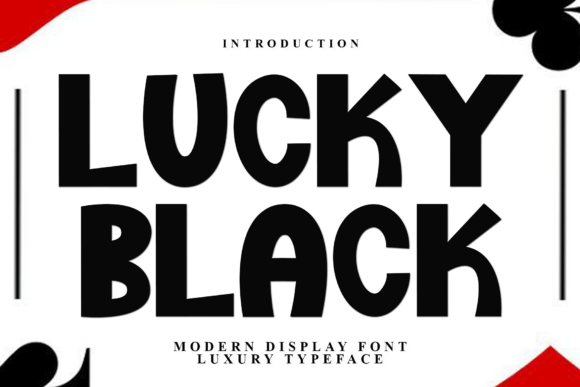
Lucky Black Font: The Ultimate Display Font for Bold Designs
Lucky Black font is a bold, eye-catching display font that has been making waves in the design world with its thick, heavy letters and fun, modern style. This font is perfect for designers who want to create posters, logos, or any design that needs to stand out from the crowd. In this article, we’ll take a closer look at the Lucky Black font, its features, and how you can use it to take your designs to the next level.
Key Features of Lucky Black Font
- Bold and Eye-Catching: Lucky Black font is designed to grab attention with its thick, heavy letters that make a statement.
- Modern Style: This font has a fun and modern style that is perfect for designs that need to look fresh and contemporary.
- Easy to Read: The letters in Lucky Black font are big and easy to read, making it perfect for use in posters, logos, and other designs where readability is key.
- Strong and Confident: The overall look of Lucky Black font is strong and confident, making it perfect for designs that need to convey a sense of authority or power.
Uses of Lucky Black Font
Lucky Black font is a versatile font that can be used in a variety of design projects. Here are some of the most popular uses of this font:
- Posters: Lucky Black font is perfect for creating eye-catching posters that need to grab attention.
- Logos: This font can be used to create bold and memorable logos that make a statement.
- Headings: Lucky Black font can be used as a heading font to add emphasis and create visual interest.
- Advertising: This font is perfect for use in advertising, where bold and eye-catching text is often needed.
Benefits of Using Lucky Black Font
There are many benefits to using Lucky Black font in your designs. Here are some of the most significant advantages:
- Attention-Grabbing: Lucky Black font is designed to grab attention and make a statement.
- Easy to Read: The letters in this font are big and easy to read, making it perfect for use in designs where readability is key.
- Versatile: Lucky Black font can be used in a variety of design projects, from posters and logos to headings and advertising.
- Modern Style: This font has a fun and modern style that is perfect for designs that need to look fresh and contemporary.
How to Use Lucky Black Font
Using Lucky Black font is easy. Here are some tips to get you started:
- Choose the Right Size: Make sure to choose a size that is large enough to be easily read.
- Use it for Headings: Lucky Black font is perfect for use as a heading font to add emphasis and create visual interest.
- Pair it with Other Fonts: This font can be paired with other fonts to create a unique and visually appealing design.
- Experiment with Colors: Try out different colors to see what works best with Lucky Black font.
Lucky Black Font Inspiration
If you’re looking for inspiration for your designs, here are some ideas to get you started:
- Create a Bold Logo: Use Lucky Black font to create a bold and memorable logo that makes a statement.
- Design an Eye-Catching Poster: This font is perfect for creating eye-catching posters that need to grab attention.
- Make a Statement with Headings: Use Lucky Black font as a heading font to add emphasis and create visual interest.
Lucky Black Font vs. Other Fonts
So, how does Lucky Black font compare to other fonts on the market? Here are some key differences:
- Uniqueness: Lucky Black font has a unique and distinctive style that sets it apart from other fonts.
- Readability: This font is designed to be easy to read, even at large sizes.
- Versatility: Lucky Black font can be used in a variety of design projects, from posters and logos to headings and advertising.
Lucky Black font is a bold, eye-catching display font that is perfect for designers who want to create posters, logos, or any design that needs to stand out. With its thick, heavy letters and fun, modern style, this font is sure to grab attention and make a statement. Whether you’re a seasoned designer or just starting out, Lucky Black font is a great choice for any design project.
- What is Lucky Black font? Lucky Black font is a bold, eye-catching display font with thick, heavy letters and a fun, modern style.
- What is Lucky Black font used for? This font is perfect for use in posters, logos, headings, and advertising.
- Is Lucky Black font easy to read? Yes, Lucky Black font is designed to be easy to read, even at large sizes.